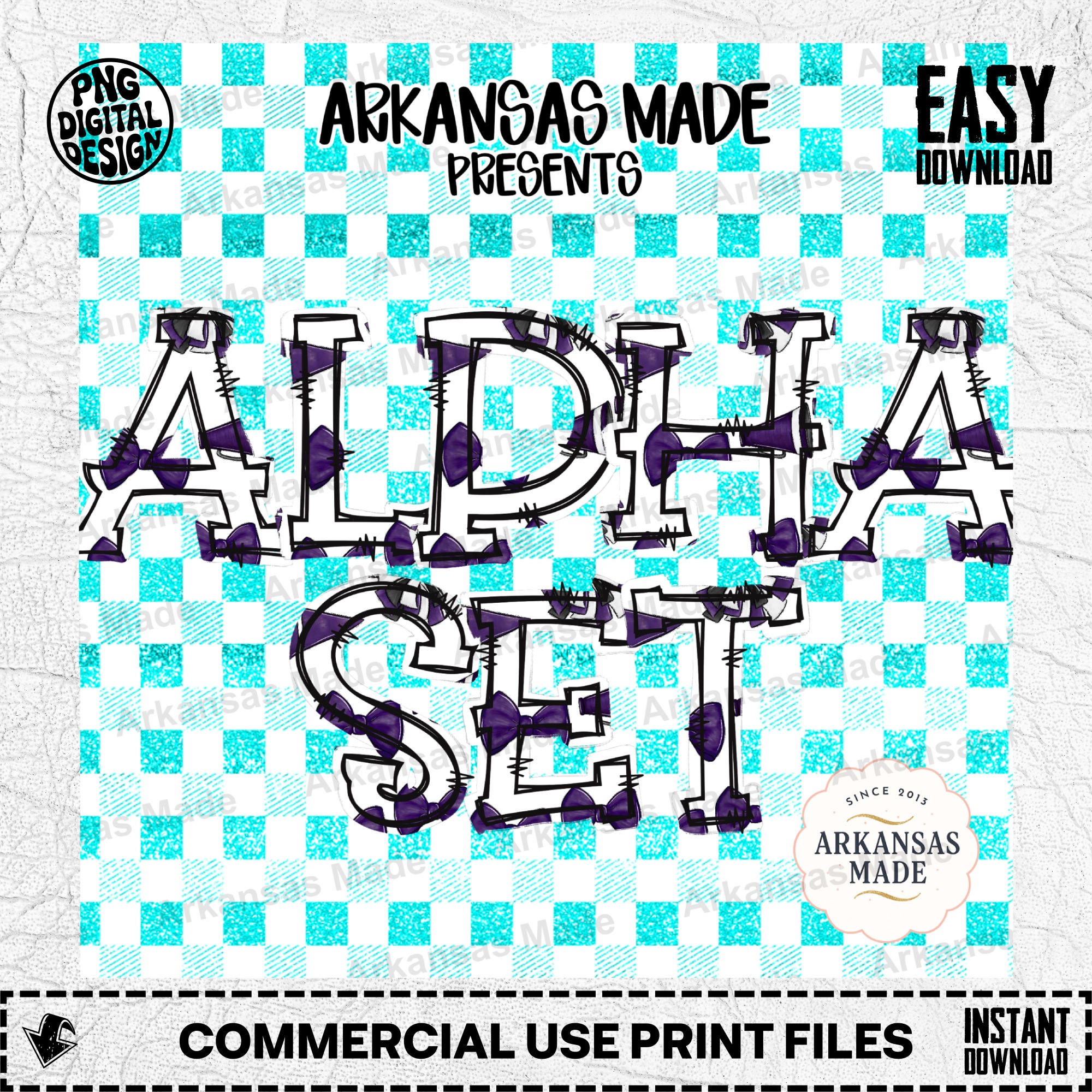
Elevate your designs with this unique Distressed Outline Alphabet PNG, featuring charming purple bows. Perfect for adding an edgy yet cute touch to any creative project. This digital download alpha set offers a distinctive hand-drawn, sketchy style, blending grunge aesthetics with a hint of coquette charm. Ideal for crafters, sublimation artists, and DIY enthusiasts looking to create personalized apparel, stickers, or unique graphic art. A versatile resource for anyone seeking a standout letter pack for their creative endeavors.